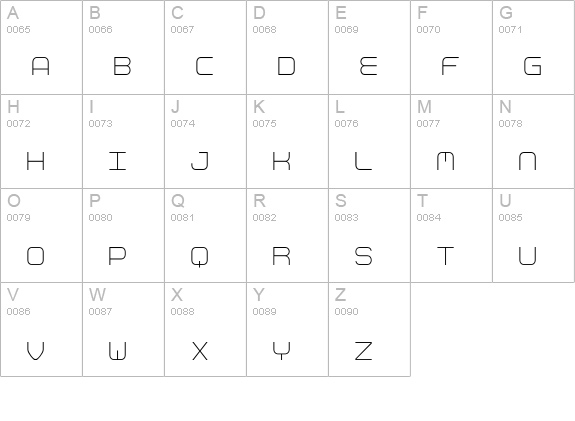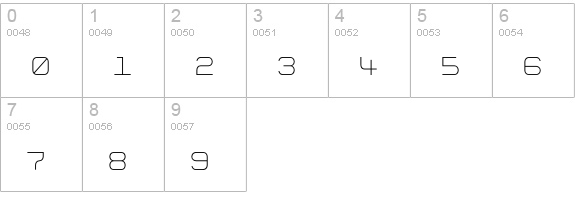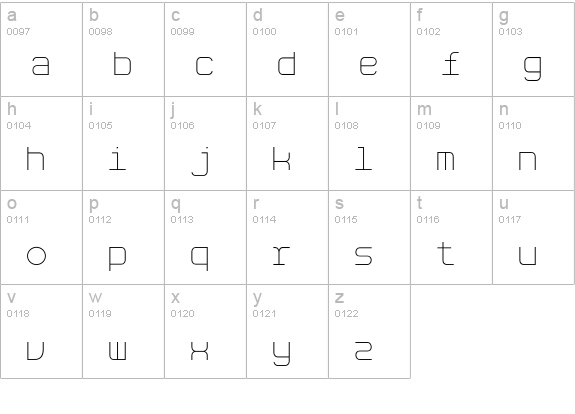
Aspirin-Refill-Halfdose Font Details
Introducing Aspirin-Refill-Halfdose font, a sleek and modern typeface that exudes elegance and sophistication. This versatile font is perfect for a wide range of design projects, from branding to editorial design, thanks to its clean lines and contemporary aesthetic. Aspirin-Refill-Halfdose font is designed to make your text stand out with its unique style and readability. Its half-dose feature adds a touch of creativity and flair to your projects, making it a perfect choice for those looking to make a statement. Best of all, Aspirin-Refill-Halfdose font is freely available to download at FontsMarket.com. Whether you're a designer, a student, or a hobbyist, this font is sure to elevate your work and help you create stunning designs that leave a lasting impression. Don't miss out on the opportunity to add this beautiful font to your collection today!